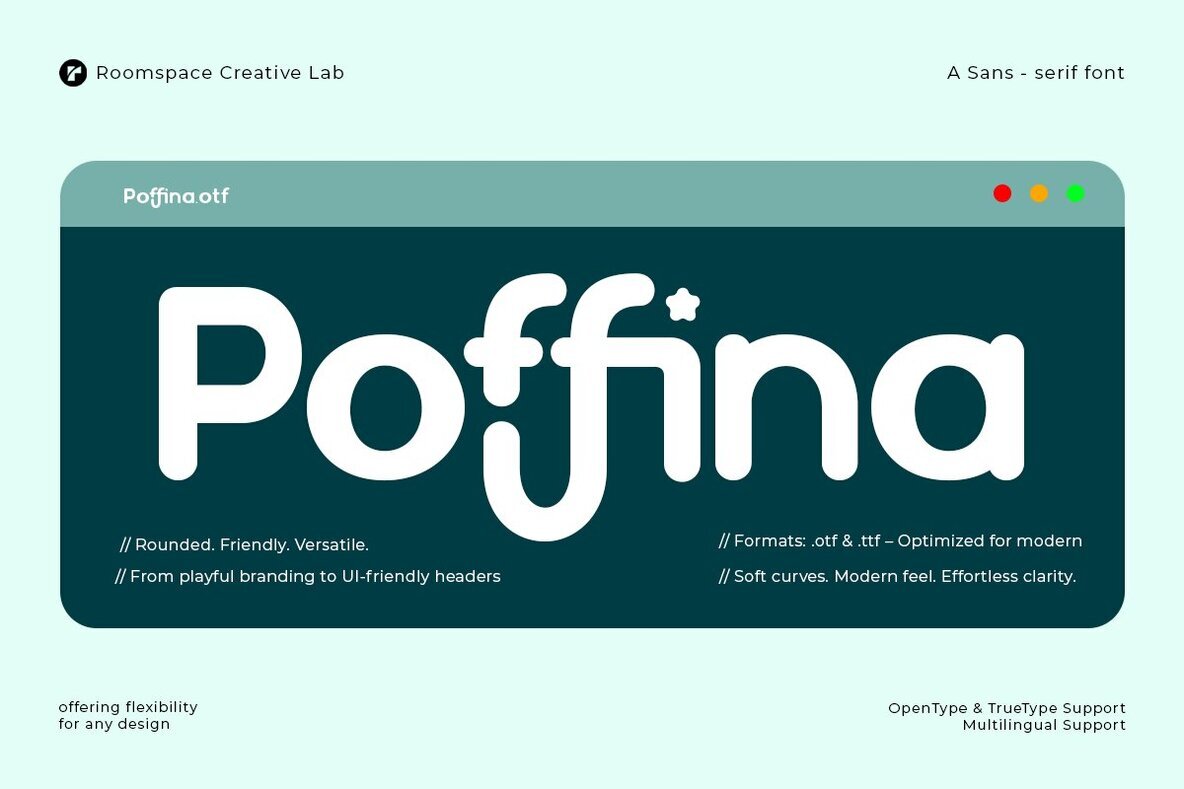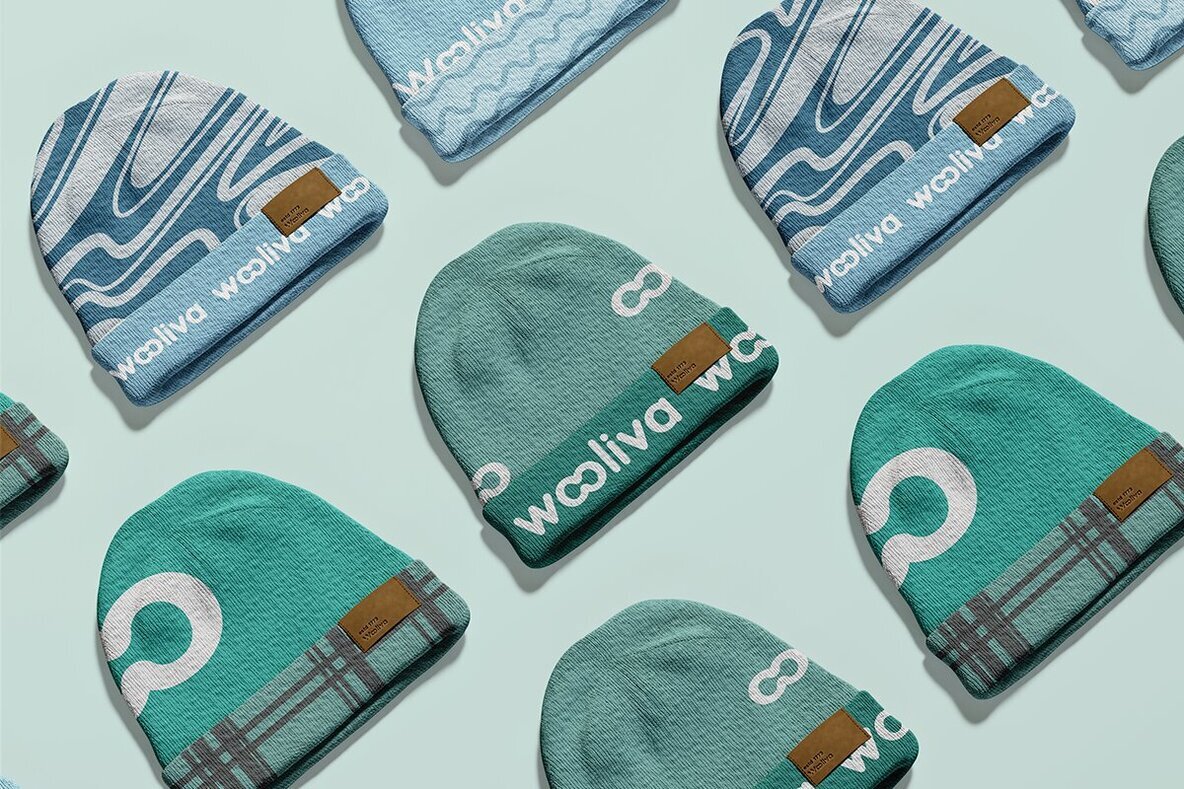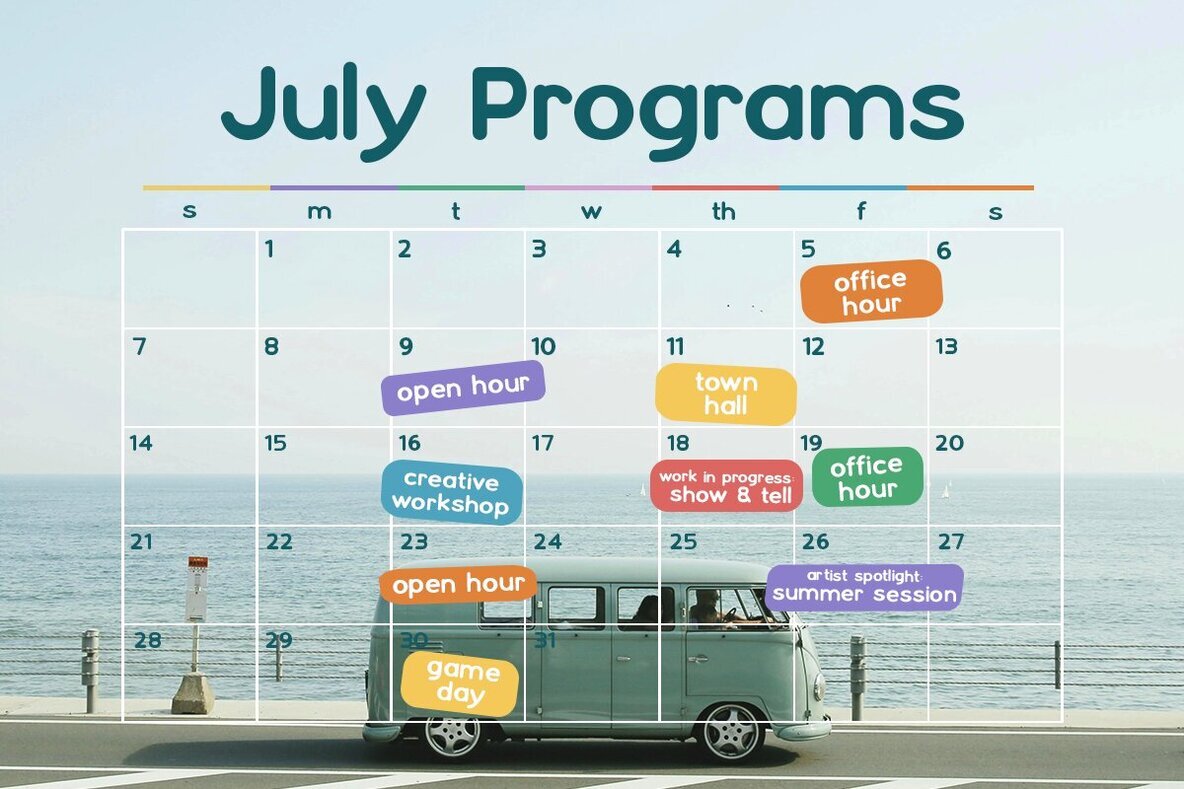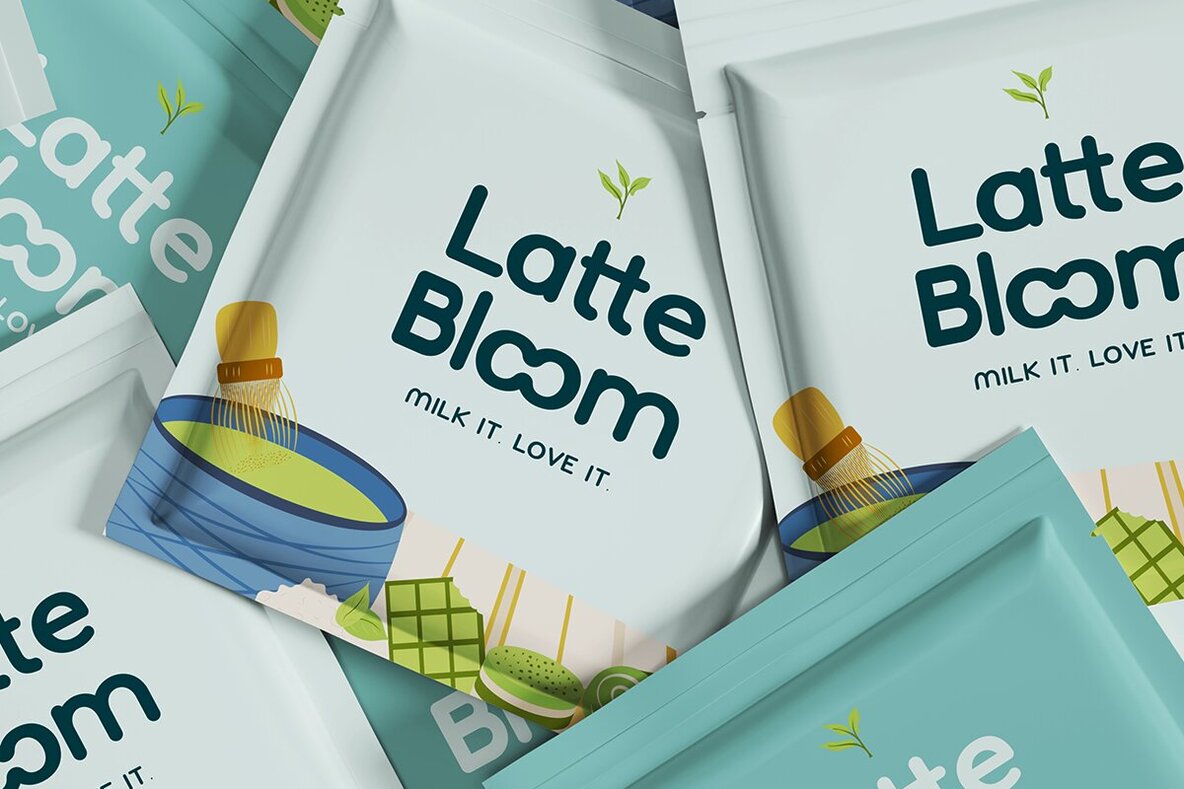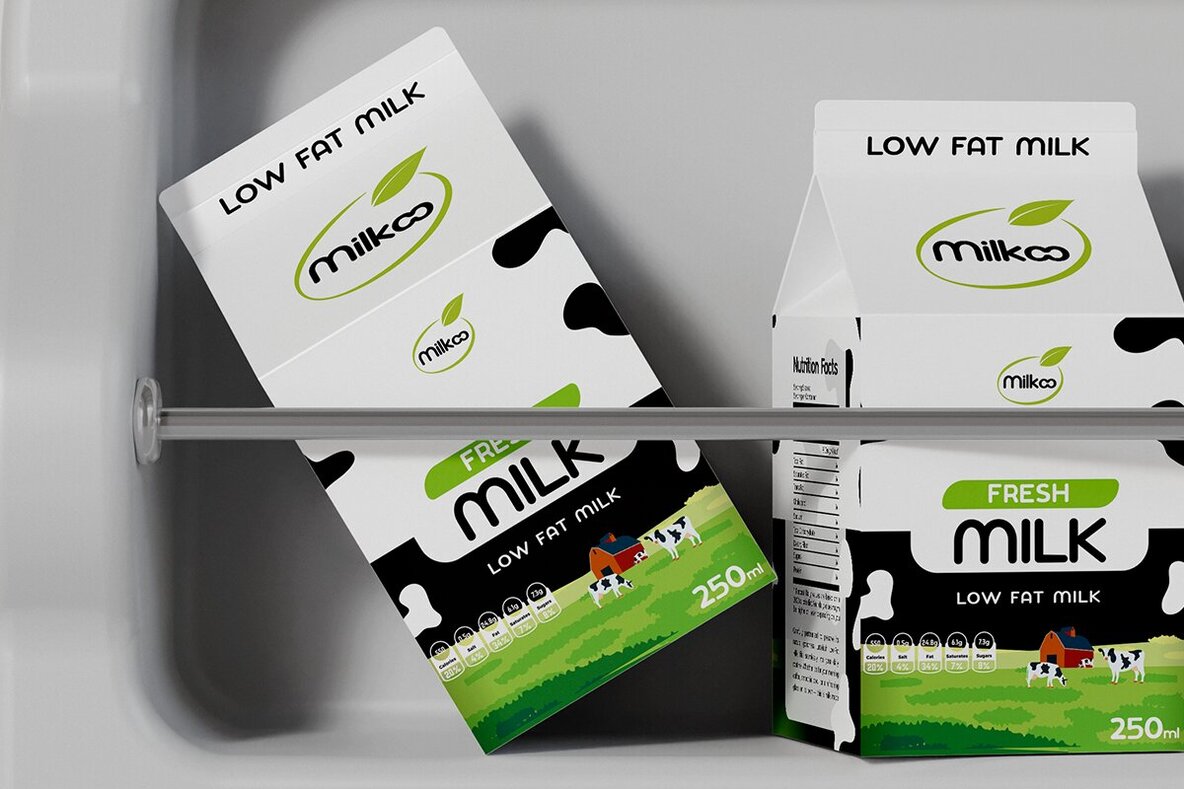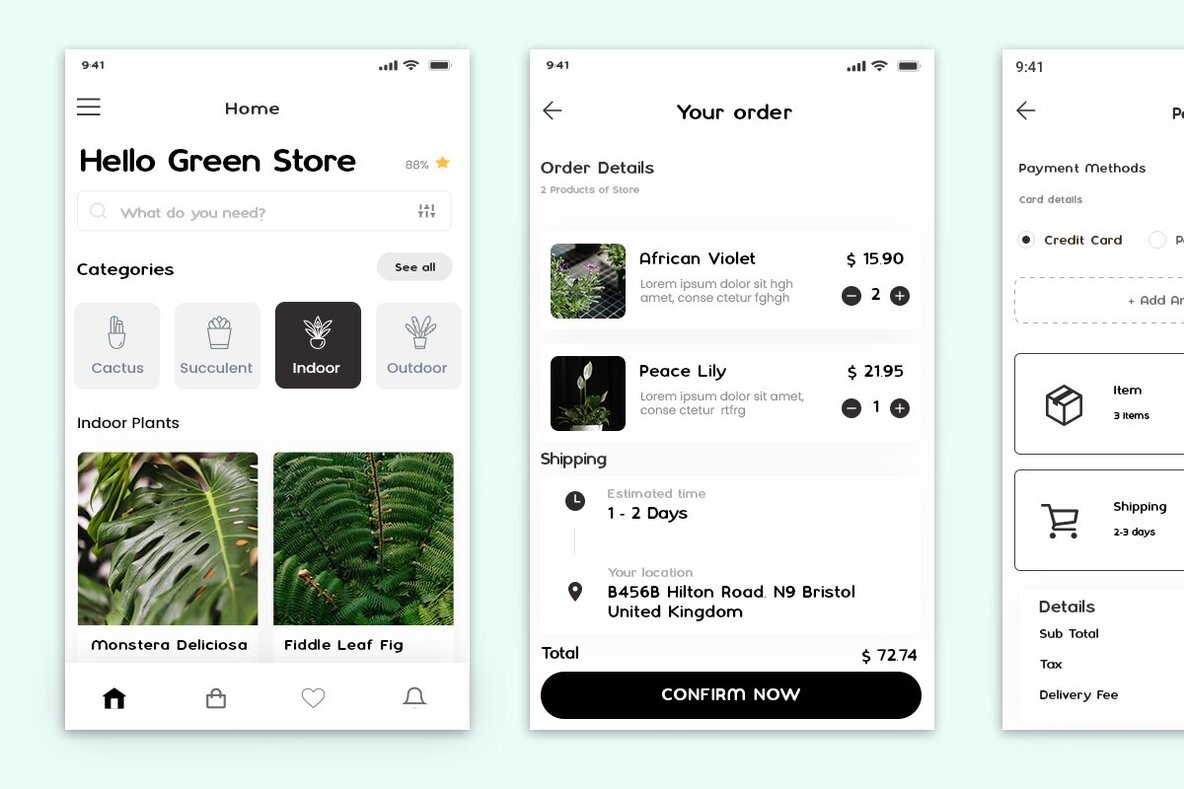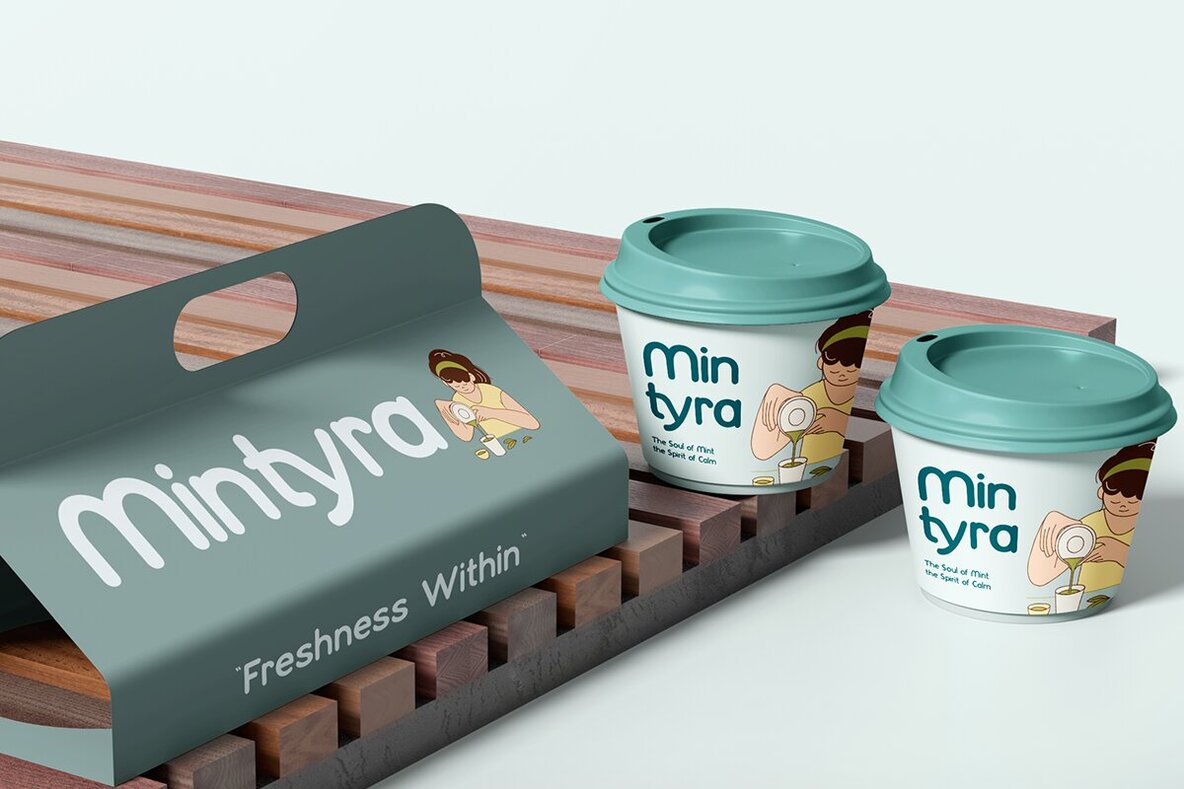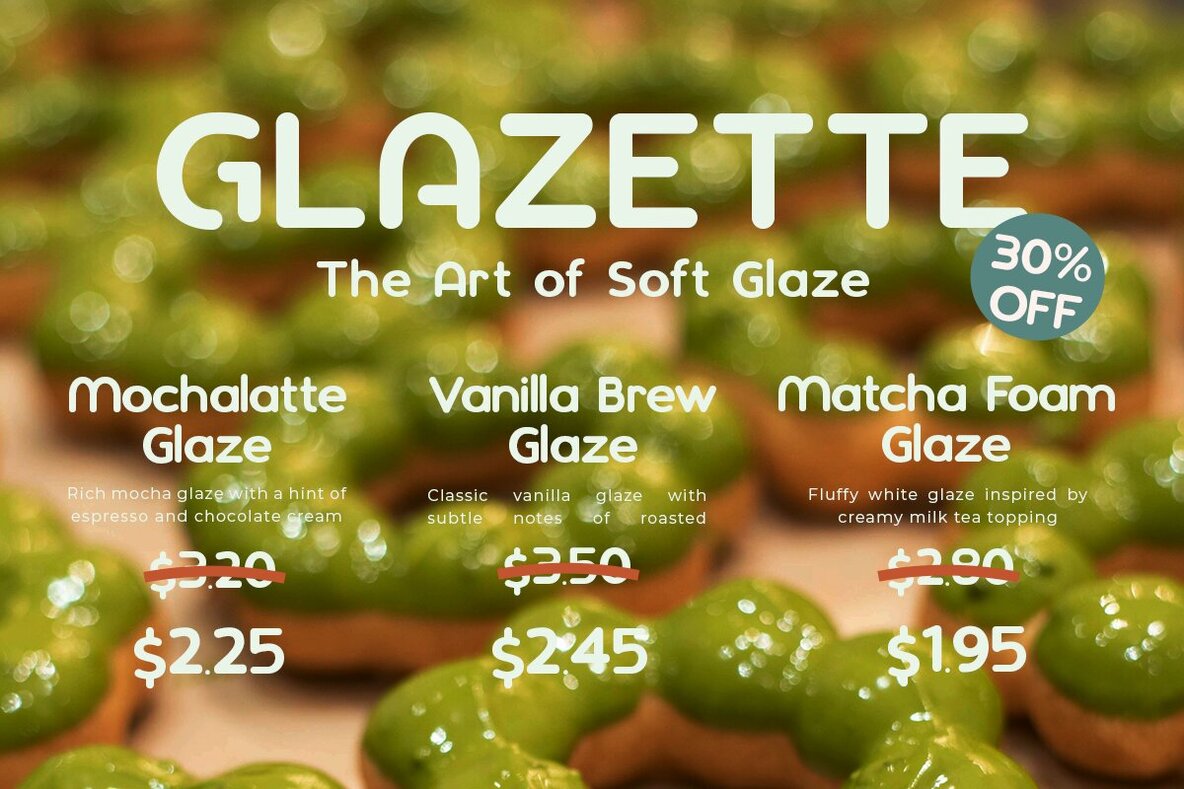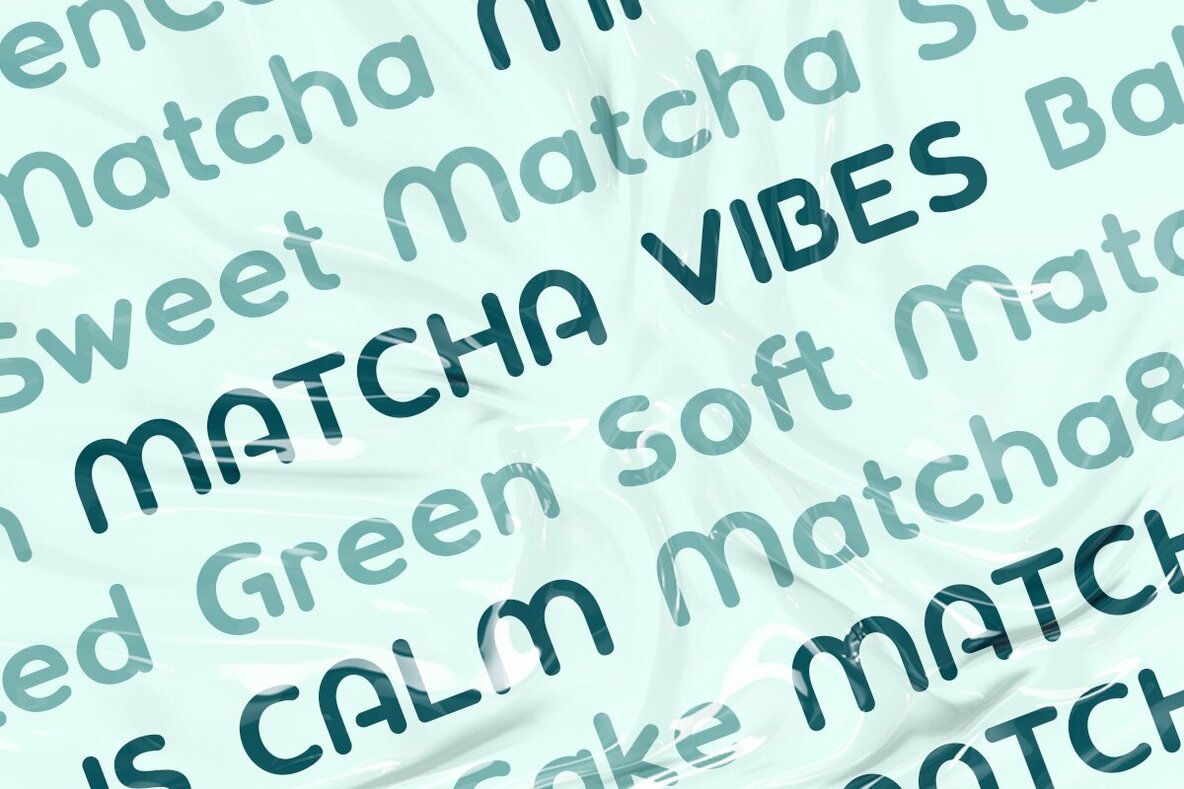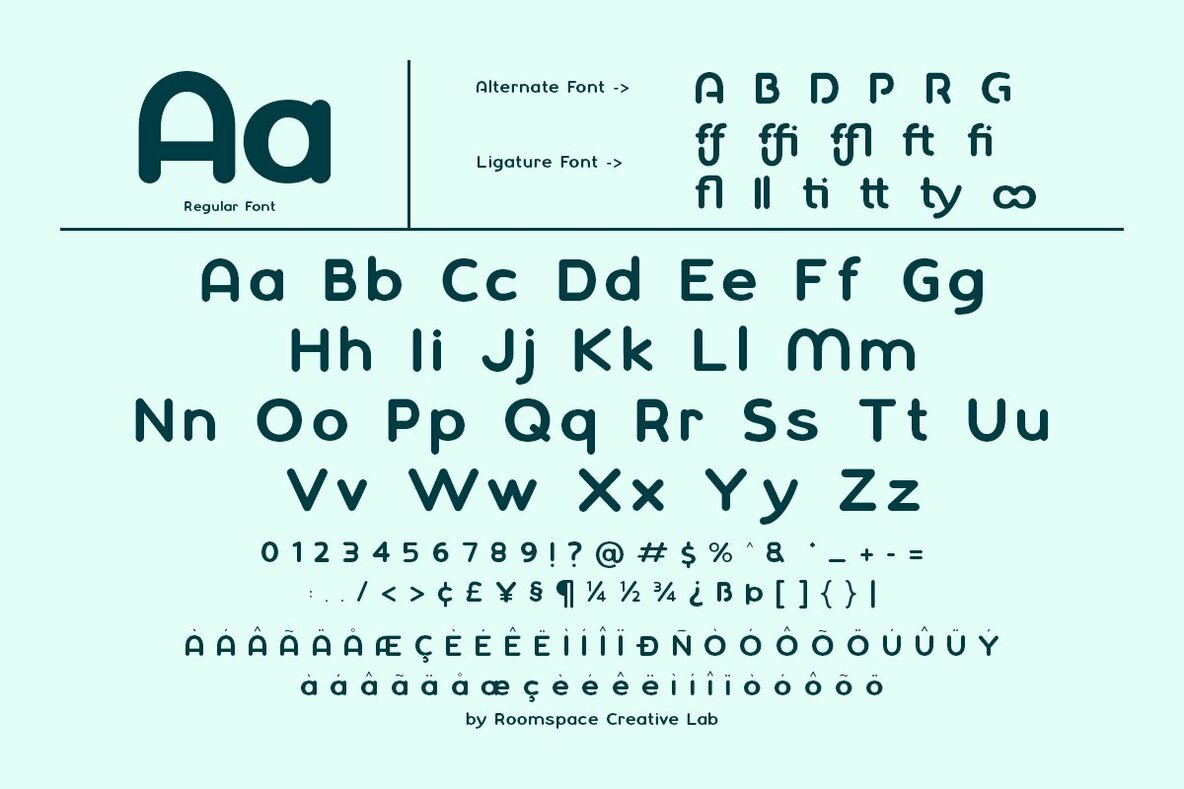
Poffina Font
Poffina Regular
Poffina — a soft, rounded sans serif font that brings a playful touch to any design. With bouncy curves and a warm personality, it’s perfect for brands that want to feel approachable, fun, and modern. Poffina is super easy to use and works beautifully across logos, websites, social media, packaging, and more. Whether you’re designing for a kids’ brand, beauty label, startup UI, or lifestyle blog, Poffina adds charm without trying too hard.